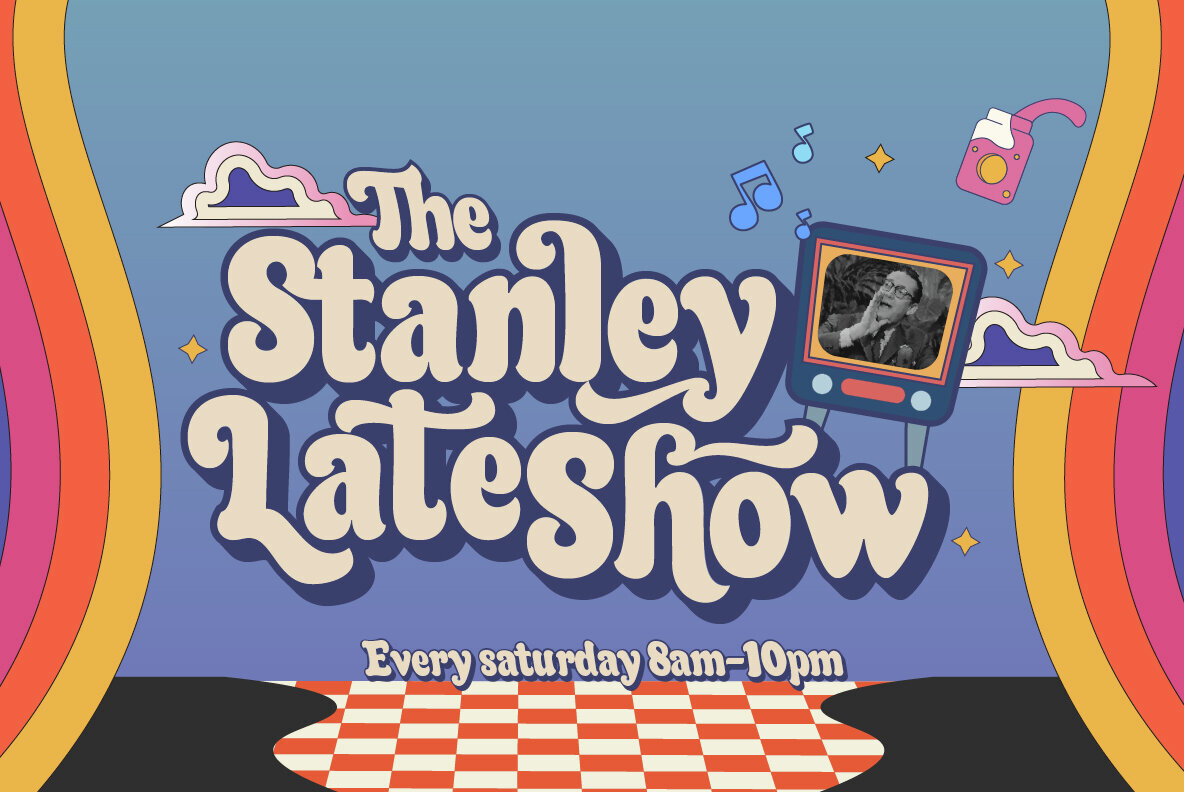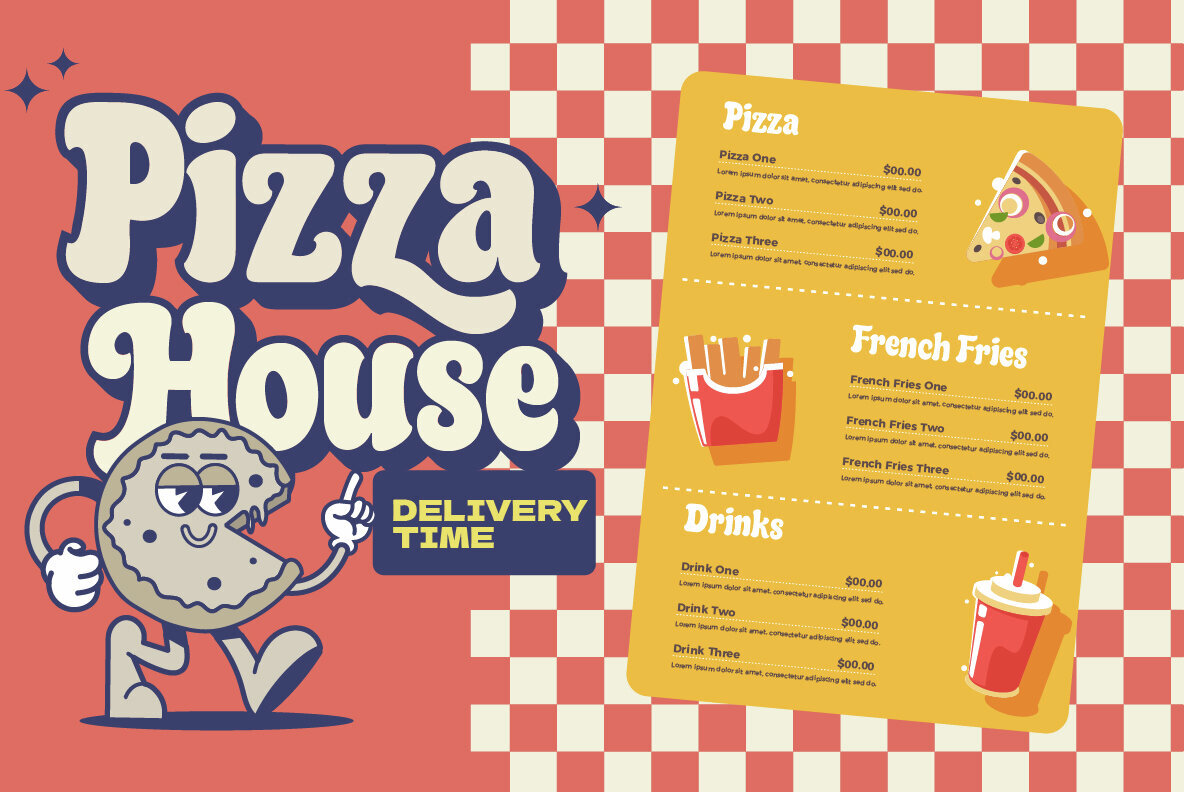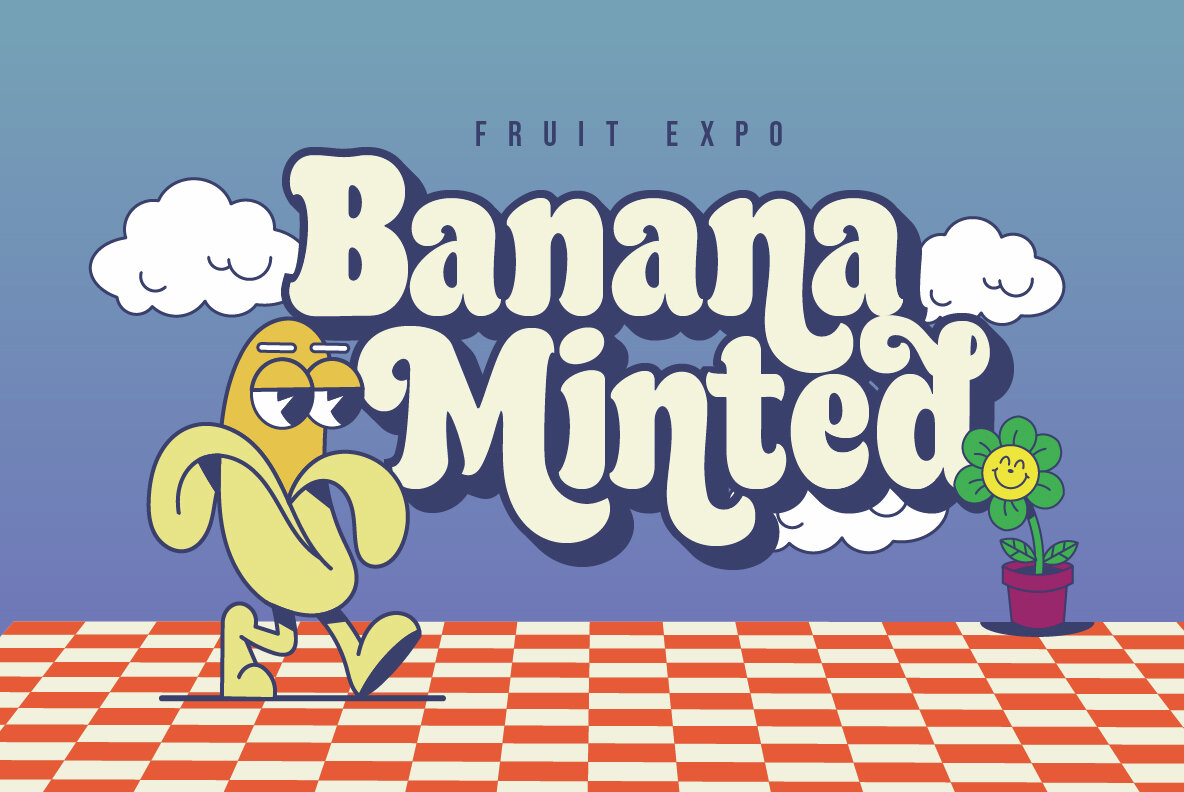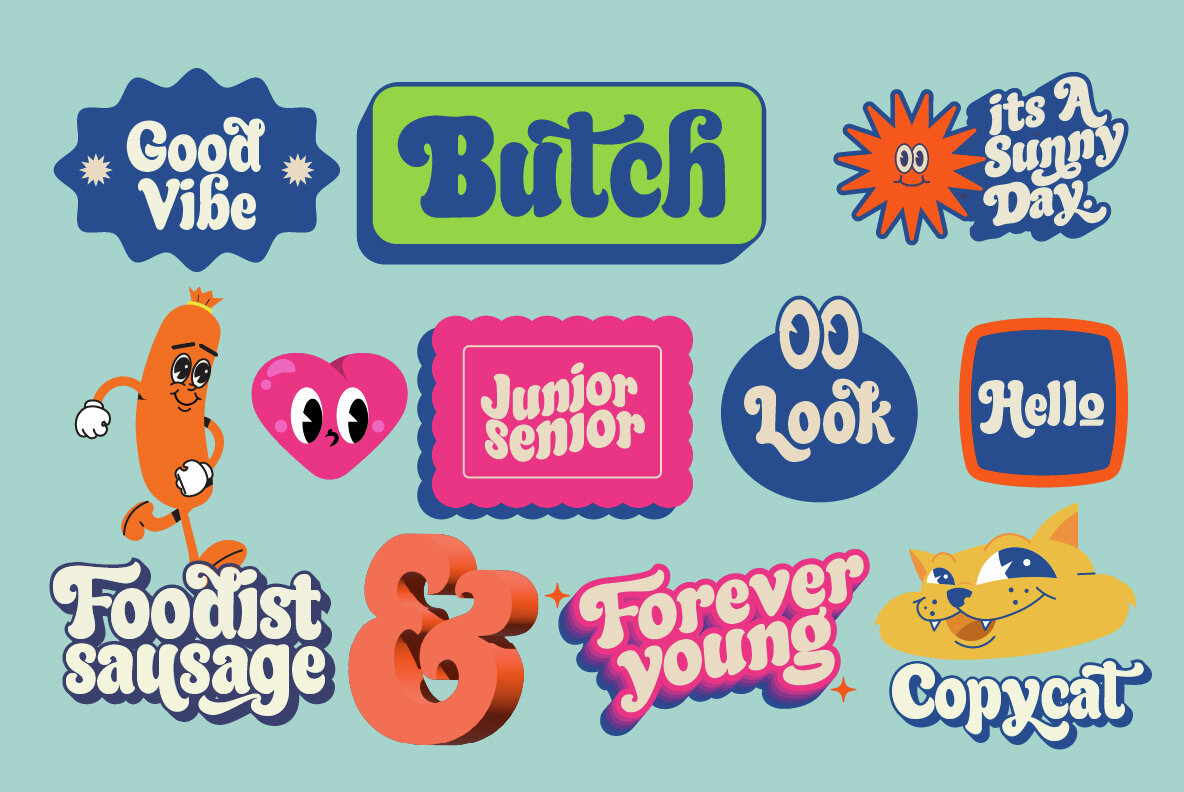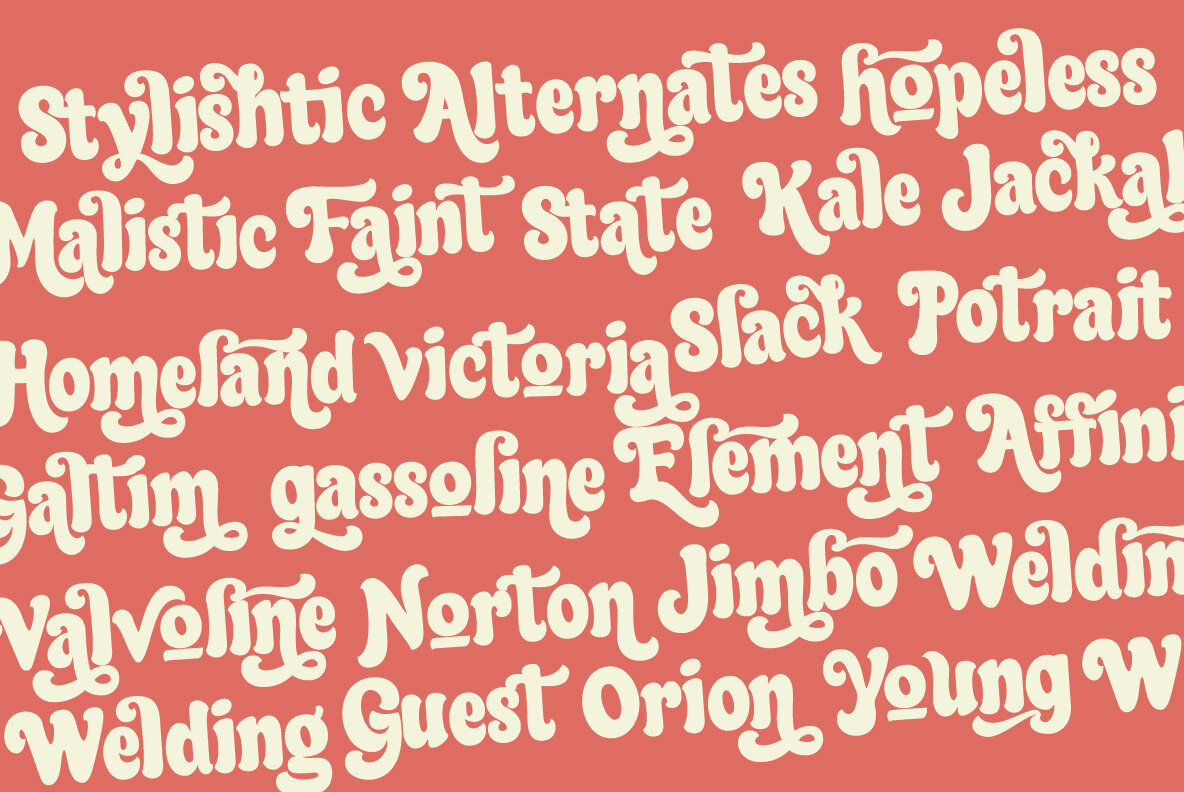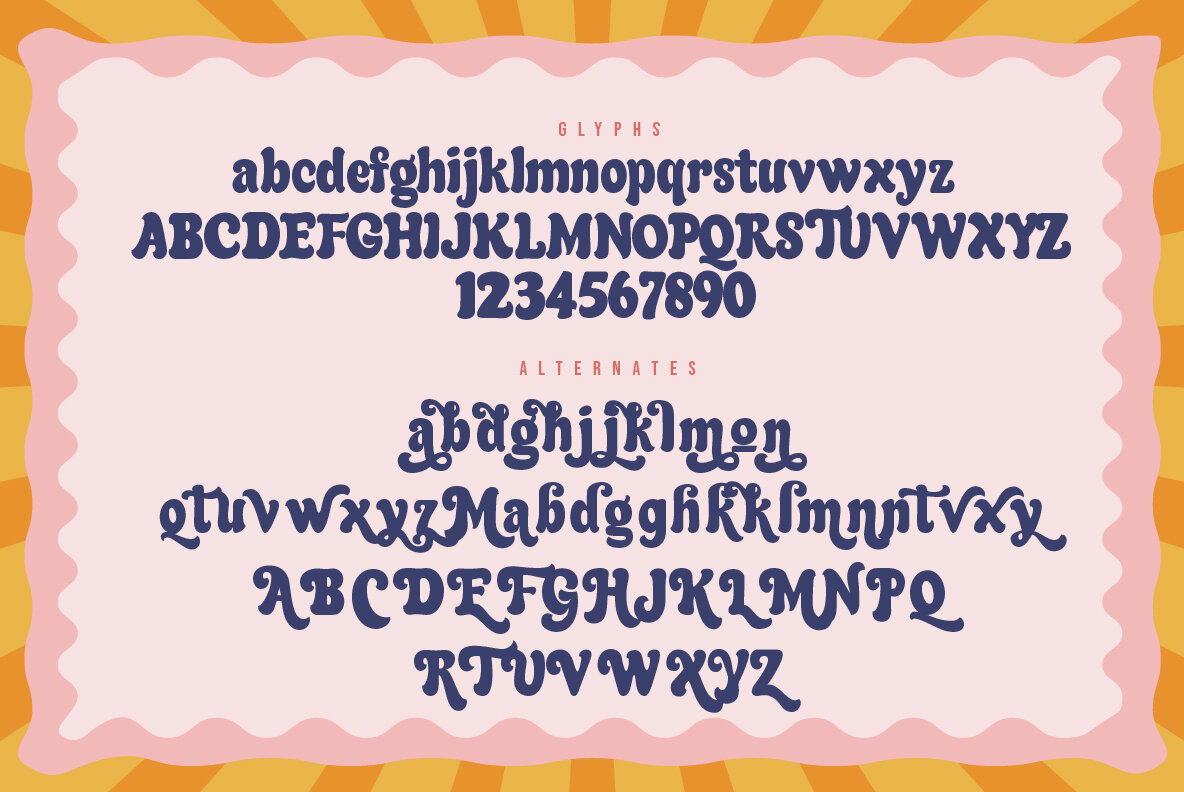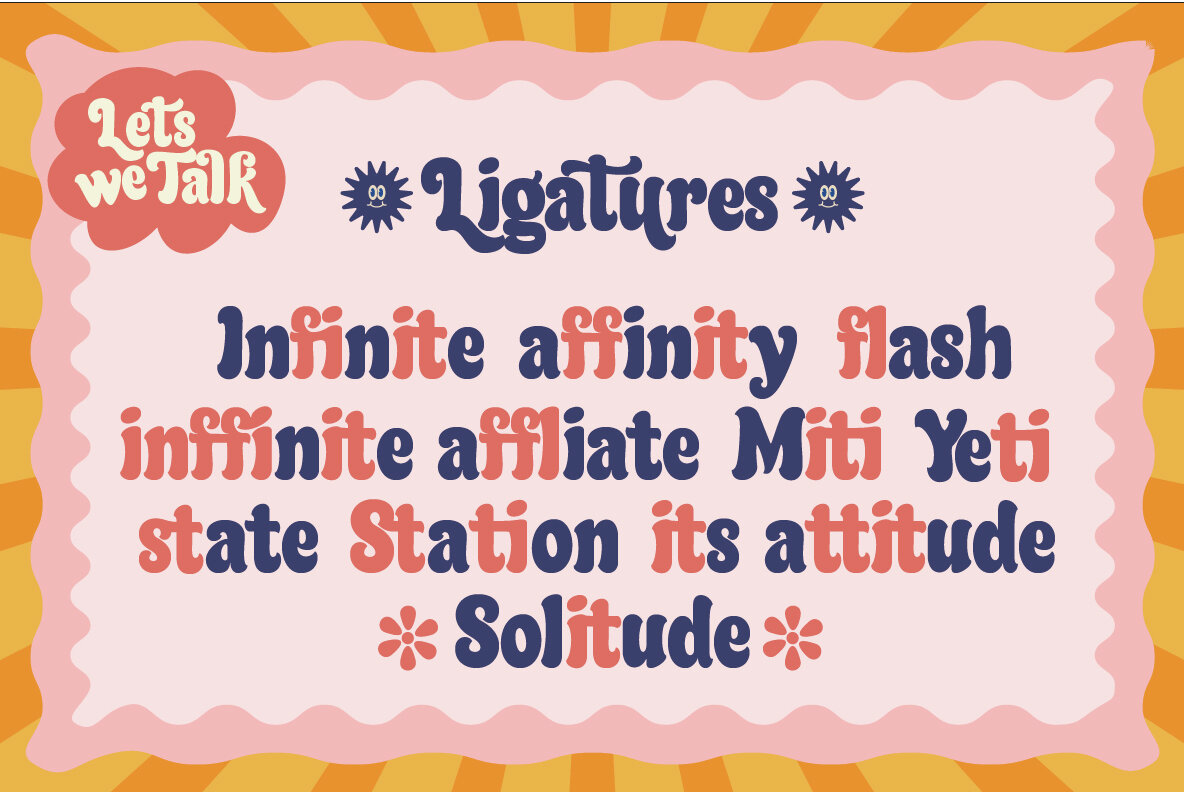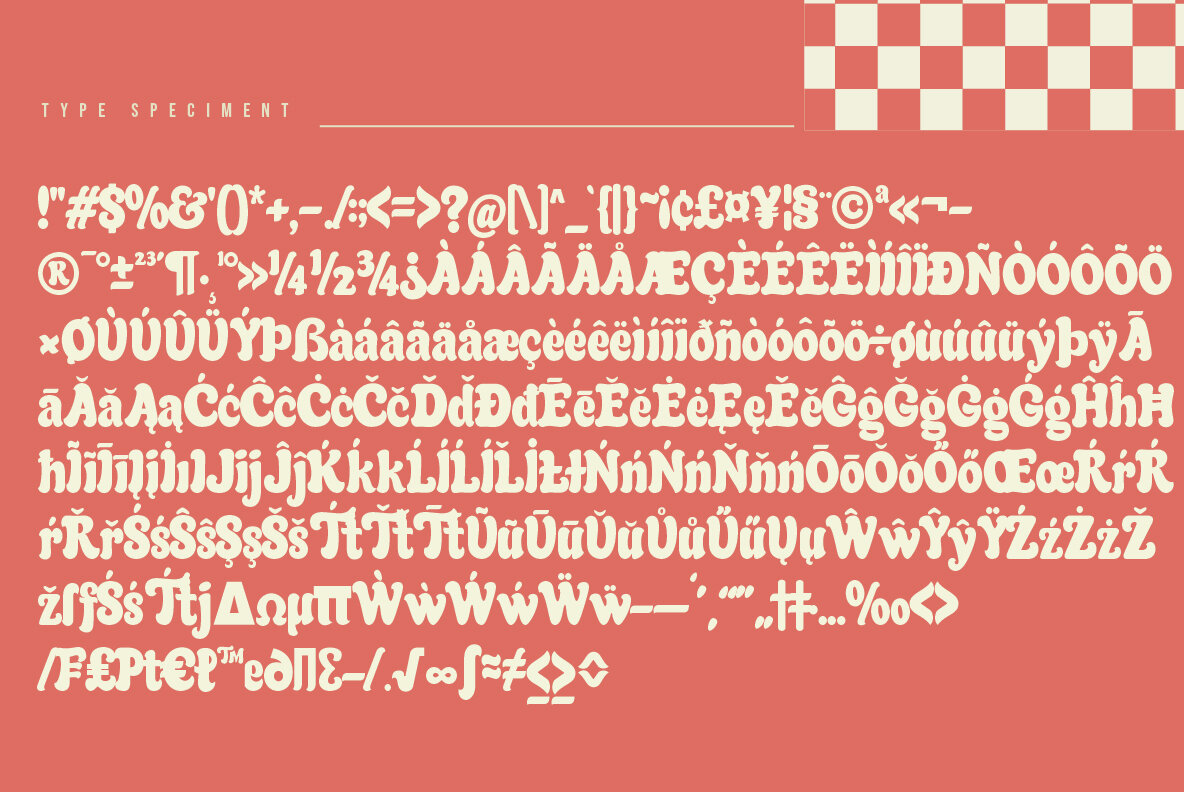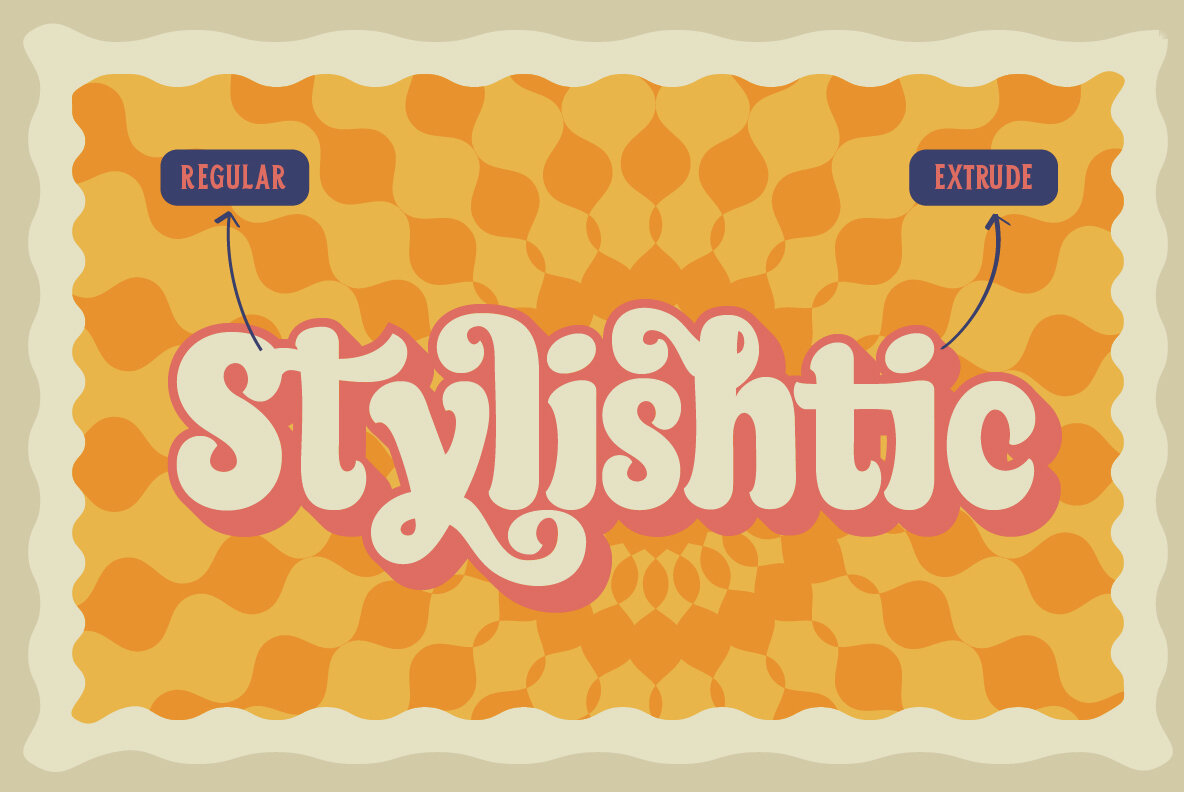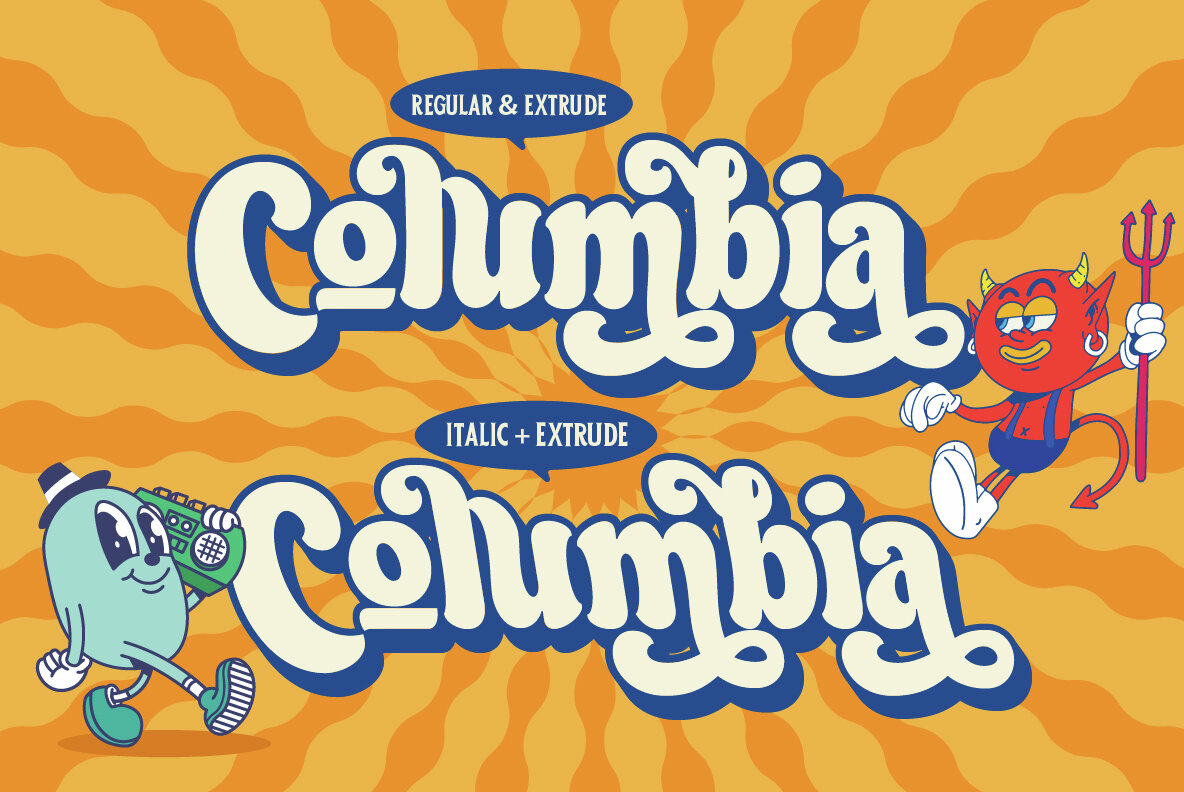
Forever Young 1
Forever Young is A disco 70s retro font is a typeface that captures the bold, flashy, and vibrant style of the disco era, which was popular in the 1970s. These fonts are characterized by their unique design elements that reflect the disco culture. with funky shapes Disco fonts often feature unconventional and geometric shapes, such as curves, swirls, and exaggerated serifs.
Retro fonts are widely used in various design projects, branding, posters, and packaging to create a sense of nostalgia or capture the essence of a particular era. They are versatile and can be customized to fit a wide range of creative applications.